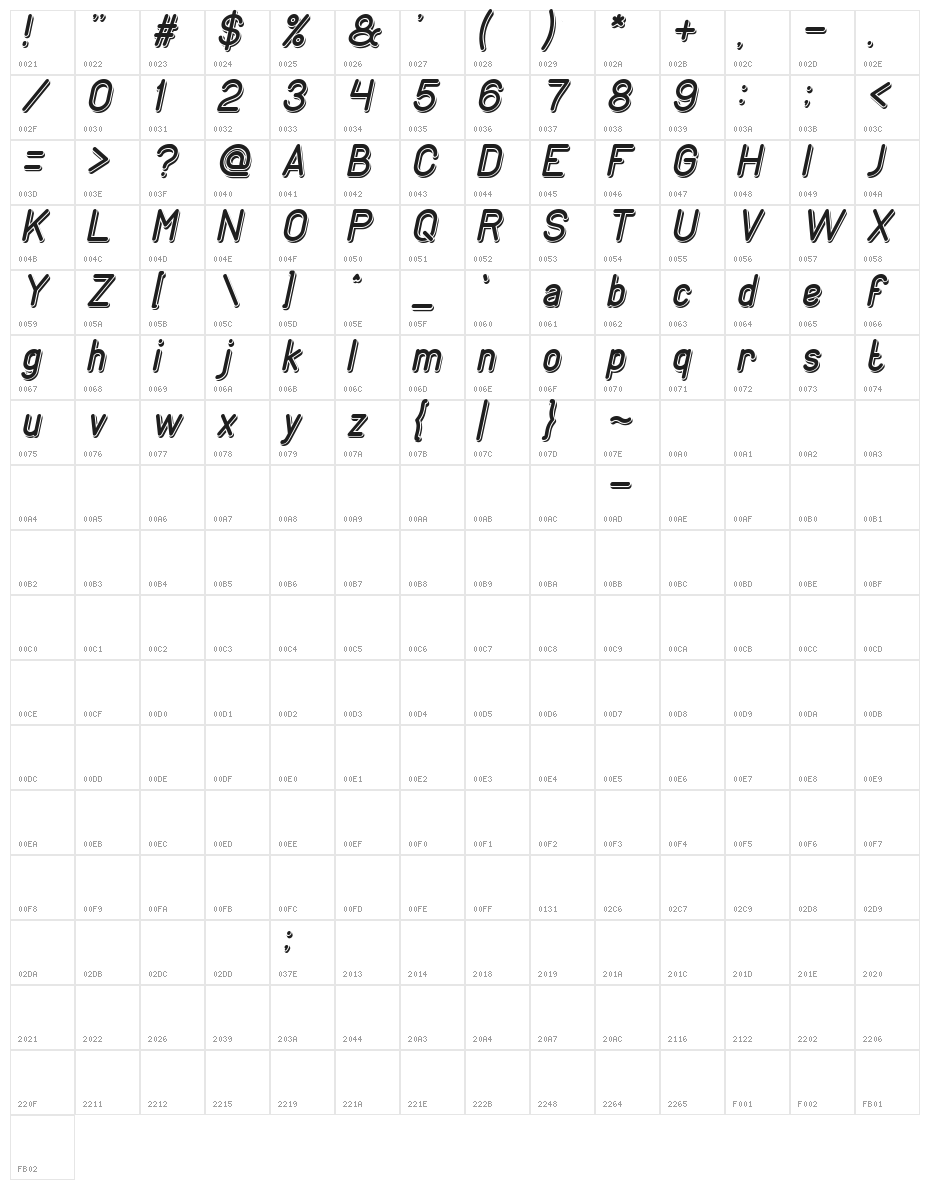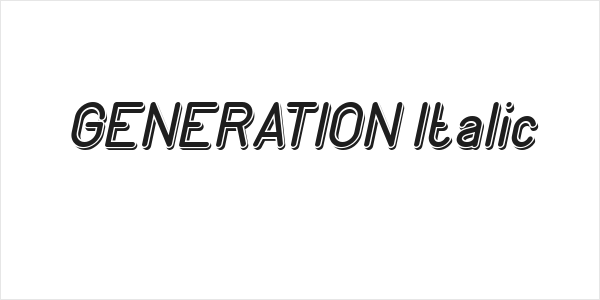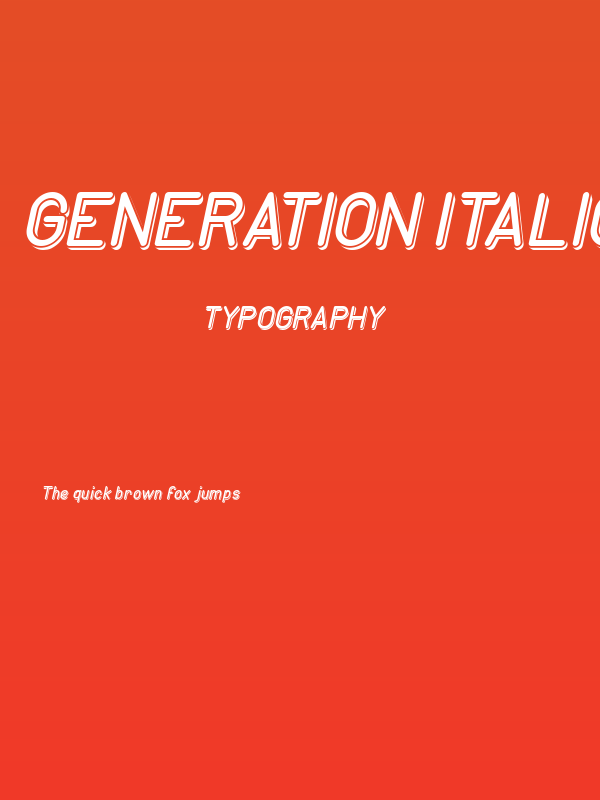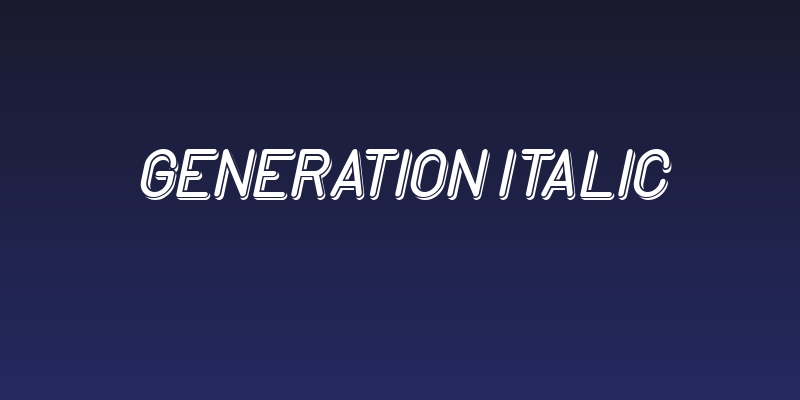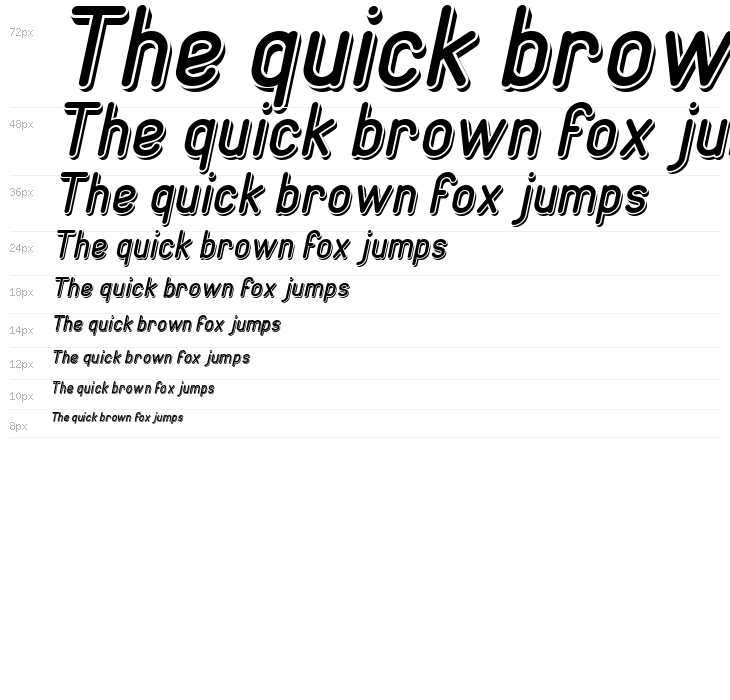
GENERATION Italic Font
GENERATION Italic Description
This font features a bold, italicized style with a modern and dynamic appearance. The characters are outlined with a thick black border, giving them a striking and impactful look. The letterforms are slightly condensed, enhancing the sleek and streamlined aesthetic. The font maintains a consistent stroke width throughout, contributing to its uniformity and readability. It includes a full set of uppercase and lowercase letters, numerals, and a variety of special characters, making it versatile for various design needs. The italic slant adds a sense of motion and energy, making it suitable for projects that require a contemporary and bold statement.
| Proposed Projects | Ideal for branding, advertising, posters, and any design requiring a bold, modern impact. |